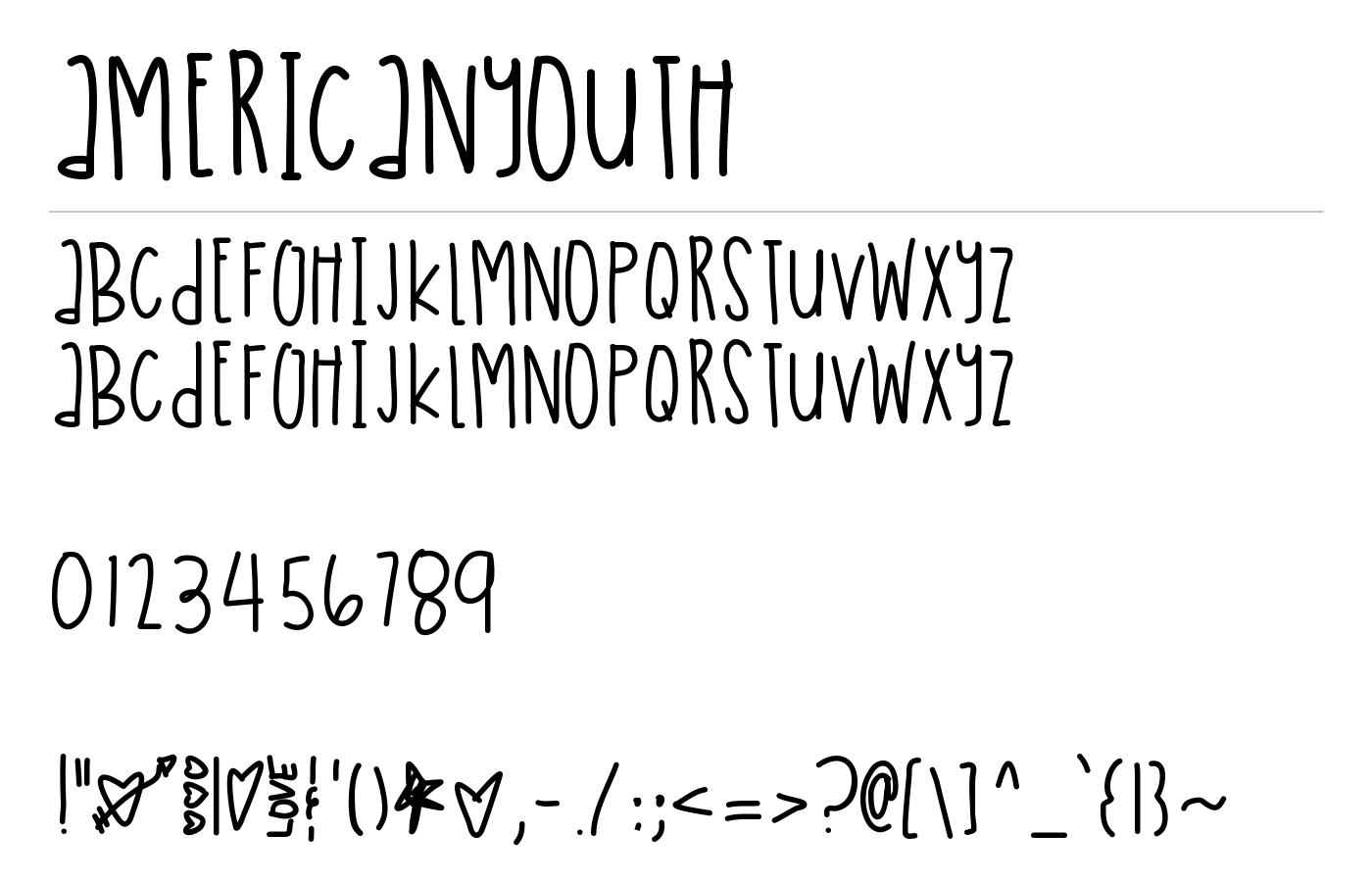
AmericanYouth is a playful, handwritten sans serif font featuring tall, narrow letterforms with smooth, casual strokes and charming, quirky details like rounded terminals and whimsical characters. Its light weight and airy spacing give it a friendly, informal feel, making it ideal for youth-oriented brands, creative projects, and fun, casual designs that want to convey warmth and approachability. This font works best in headlines, logos, and invitations where a personal, energetic vibe is desired.
AmericanYouth Font
About AmericanYouth Font